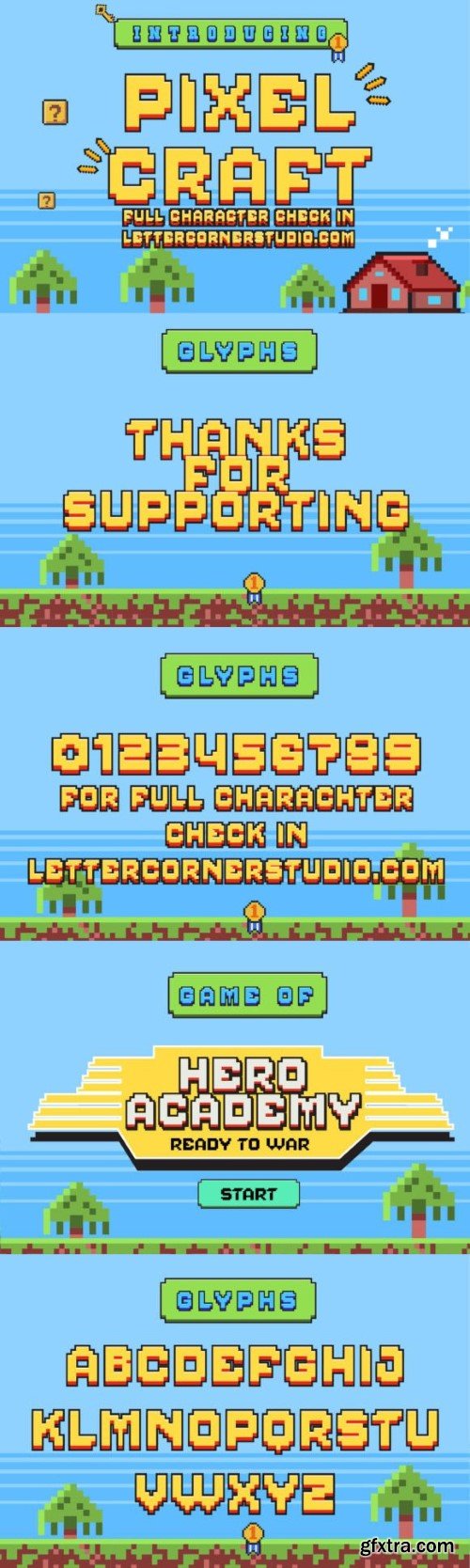
像素雕刻字体
Pixelcraft is a retro pixel font style, perfect for retro game design themes. Add this font to your creative ideas and notice how it will make them stand out!